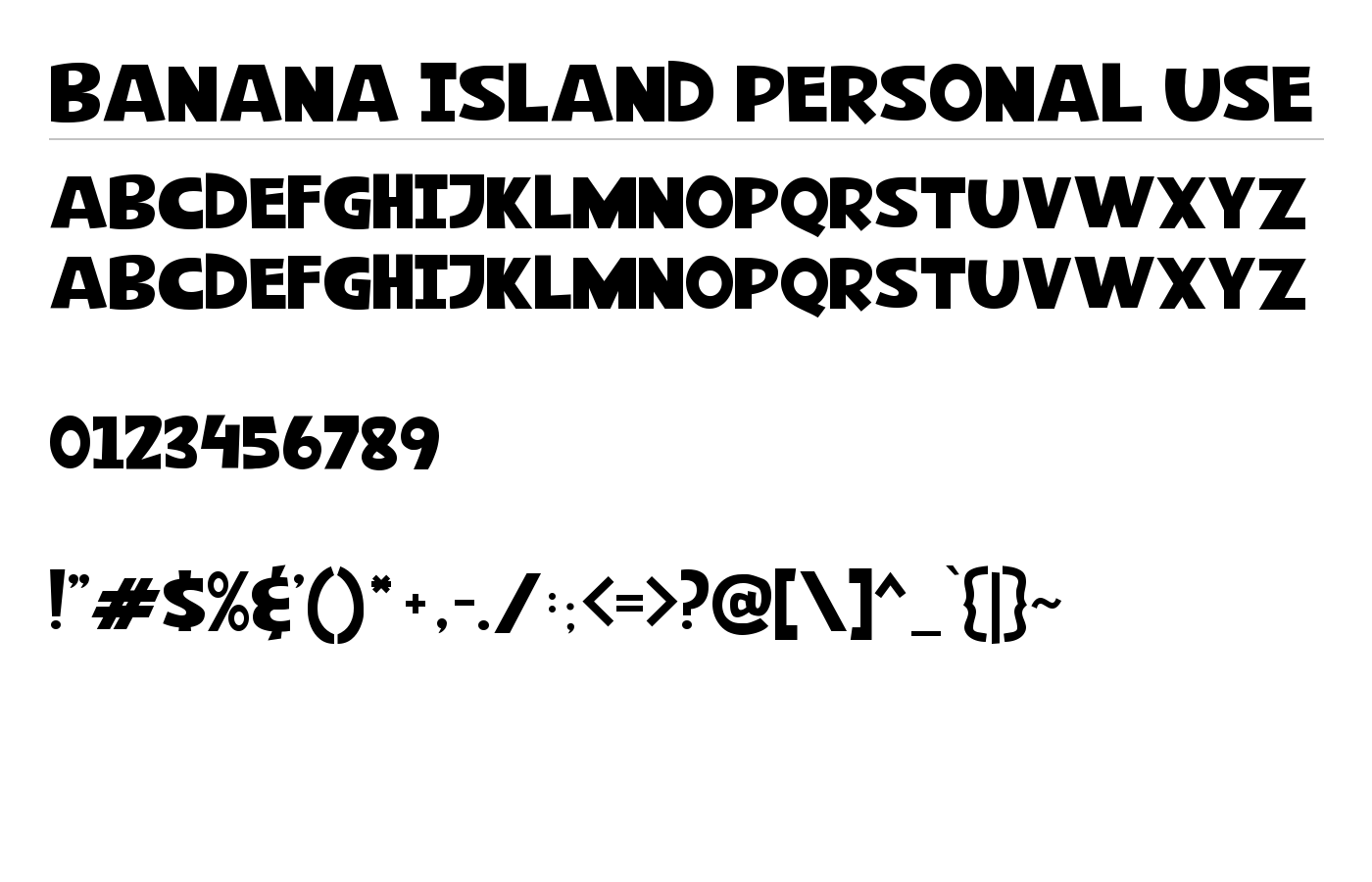
Banana Island Personal Use is a bold, sans serif display font with a playful and quirky character, featuring strong geometric shapes and uneven stroke widths that give it a lively, hand-crafted feel. Its wide, chunky letterforms and high x-height make it eye-catching and ideal for fun, casual designs such as logos, posters, and headlines where a vibrant, approachable style is desired. This font works well in creative and informal branding contexts, adding personality and charm to any project.
Banana Island Personal Use Font
About Banana Island Personal Use Font
| Font family | Banana Island Personal Use Font |